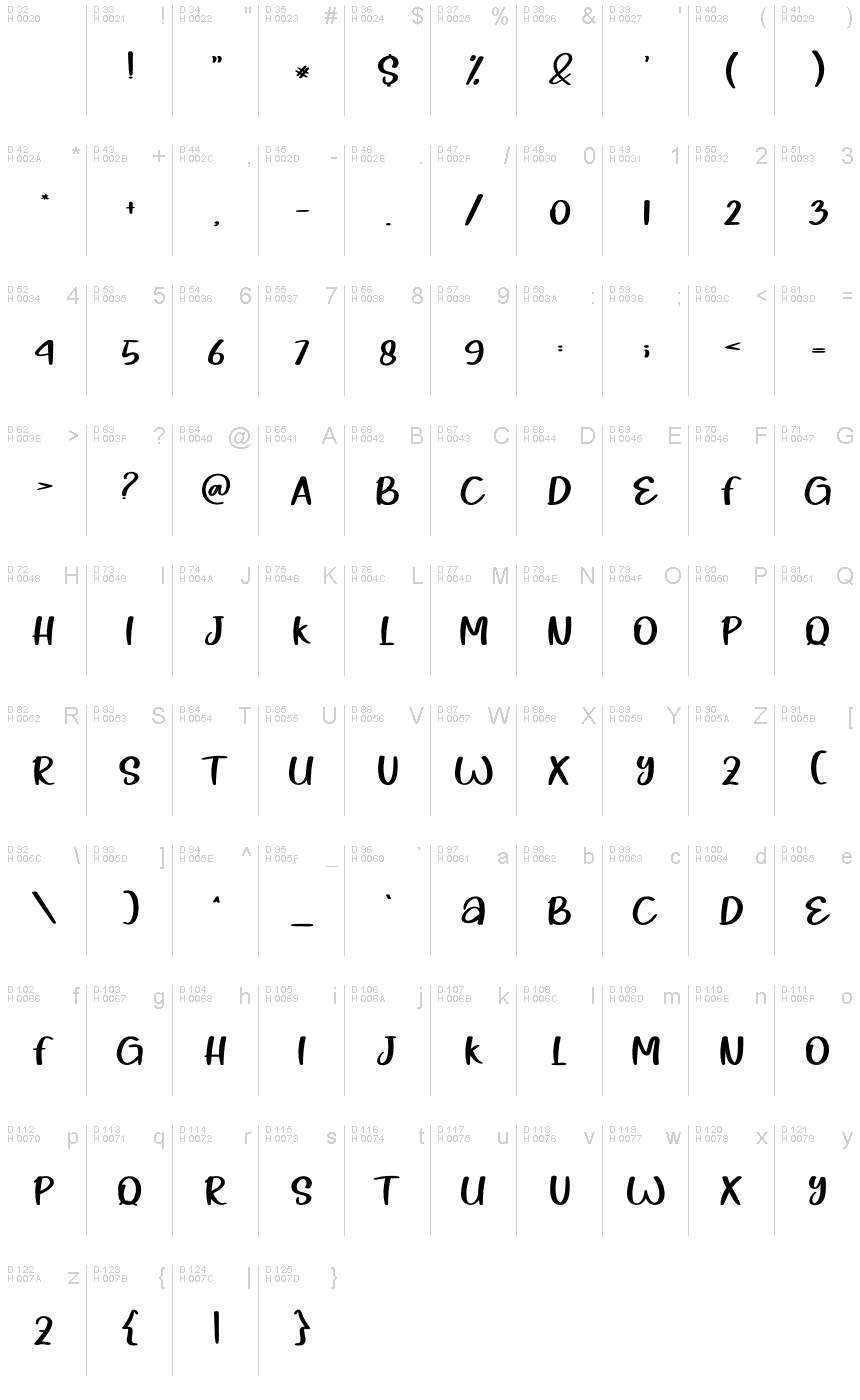
Comic
Comic, crafted by the talented Etik Fatimah, is a semi-bold handwritten font that embodies a unique blend of casual charm and stylish flair. Its hand-drawn aesthetic conveys warmth and approachability, making it an excellent choice for projects that require a personal touch.
The playful yet legible style of Comic makes it versatile for various creative endeavors, from eye-catching social media graphics to engaging children's book titles. With its distinctive characters and semi-bold weight, this font adds an inviting rhythm to any text, ensuring that your message not only stands out but also feels welcoming to readers.
Whether you're designing greeting cards, branding materials or whimsical advertisements, Comic is poised to infuse your work with personality and delight.